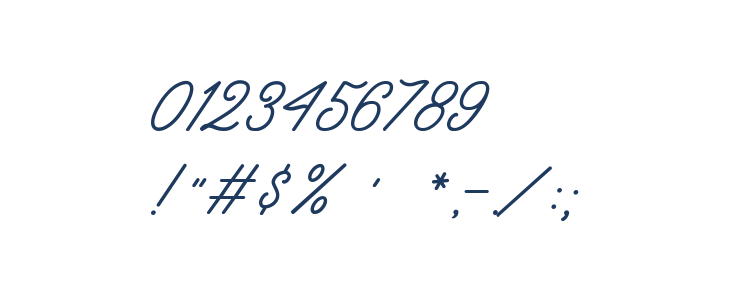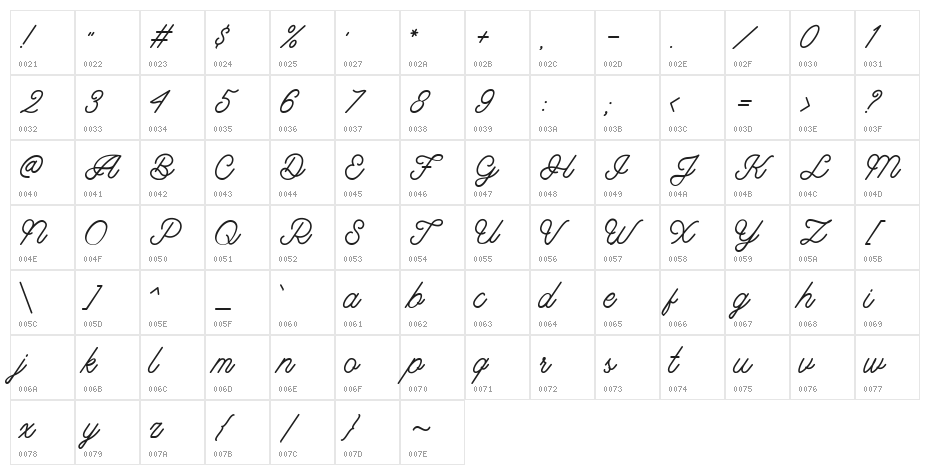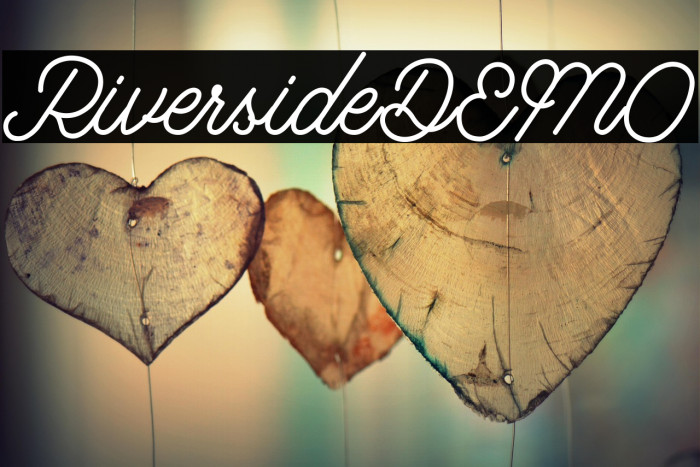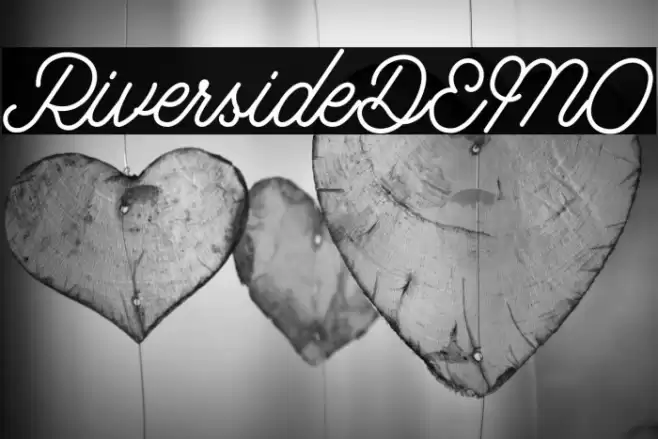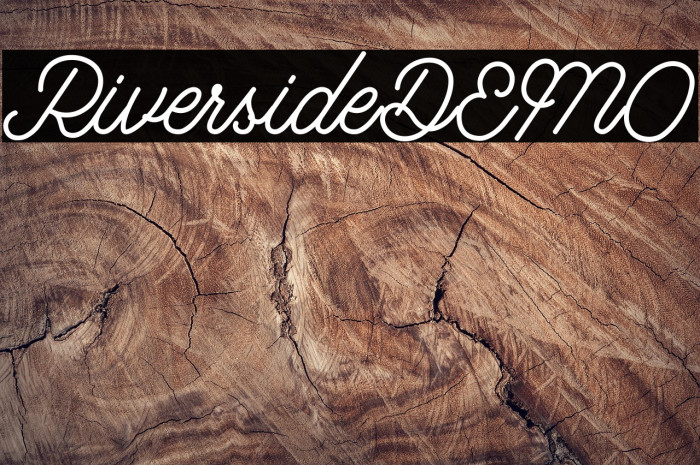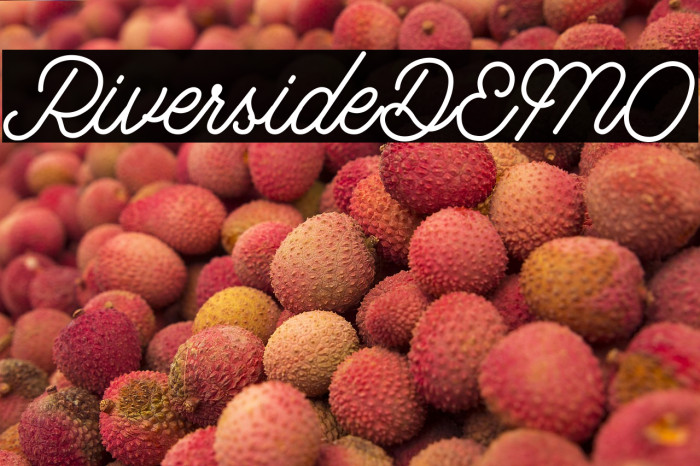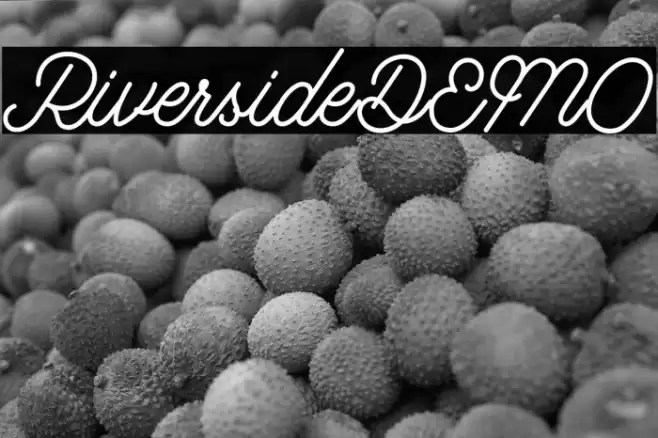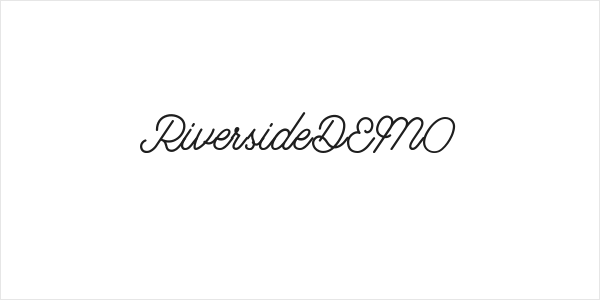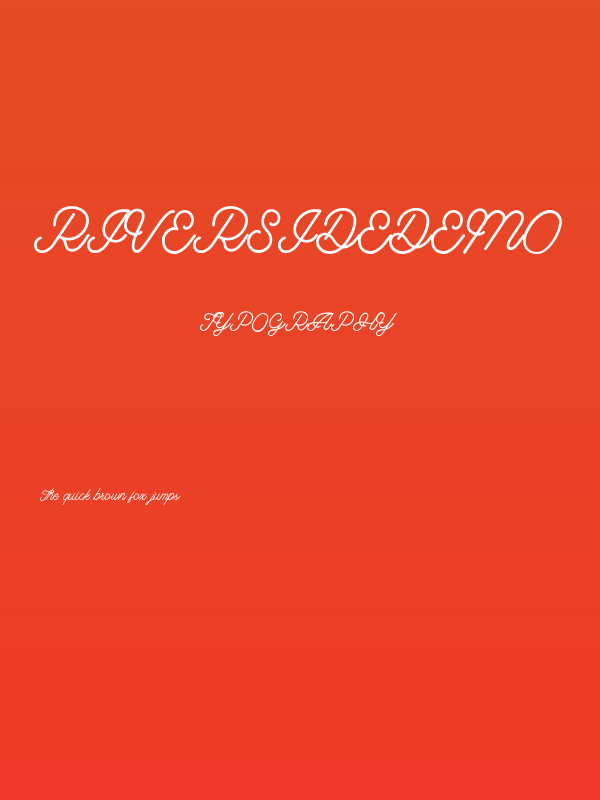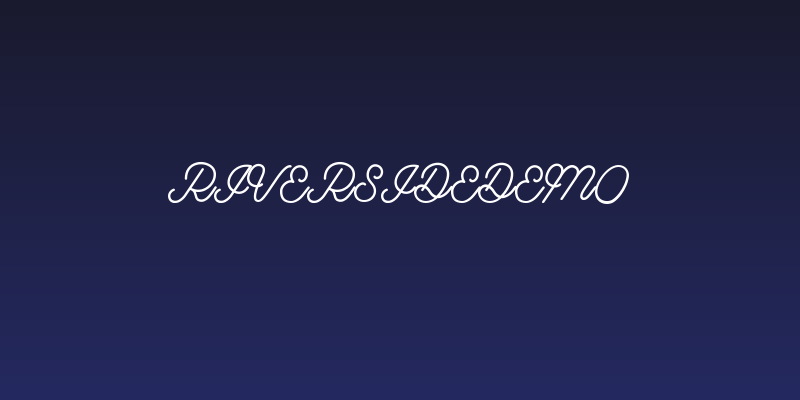
RiversideDEMO Font
RiversideDEMO Description
This font features an elegant script style with a flowing, cursive design. The uppercase letters are characterized by their graceful loops and swirls, giving them a sophisticated appearance. The lowercase letters maintain a consistent flow, connecting smoothly to create a seamless look. The numerals are designed with a similar fluidity, ensuring they blend well with the alphabetic characters. Special characters like the ampersand and percentage sign are crafted with the same attention to detail, enhancing the overall aesthetic. The font's design is both decorative and readable, making it suitable for various creative applications.